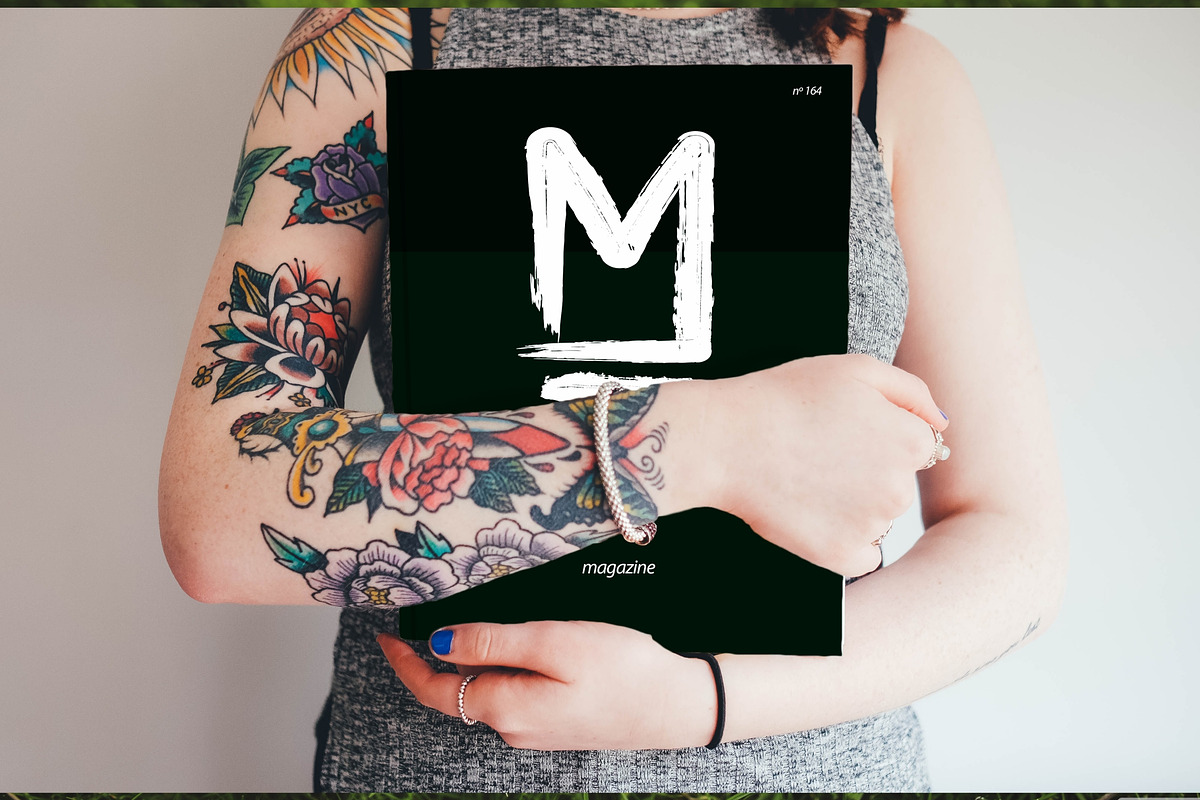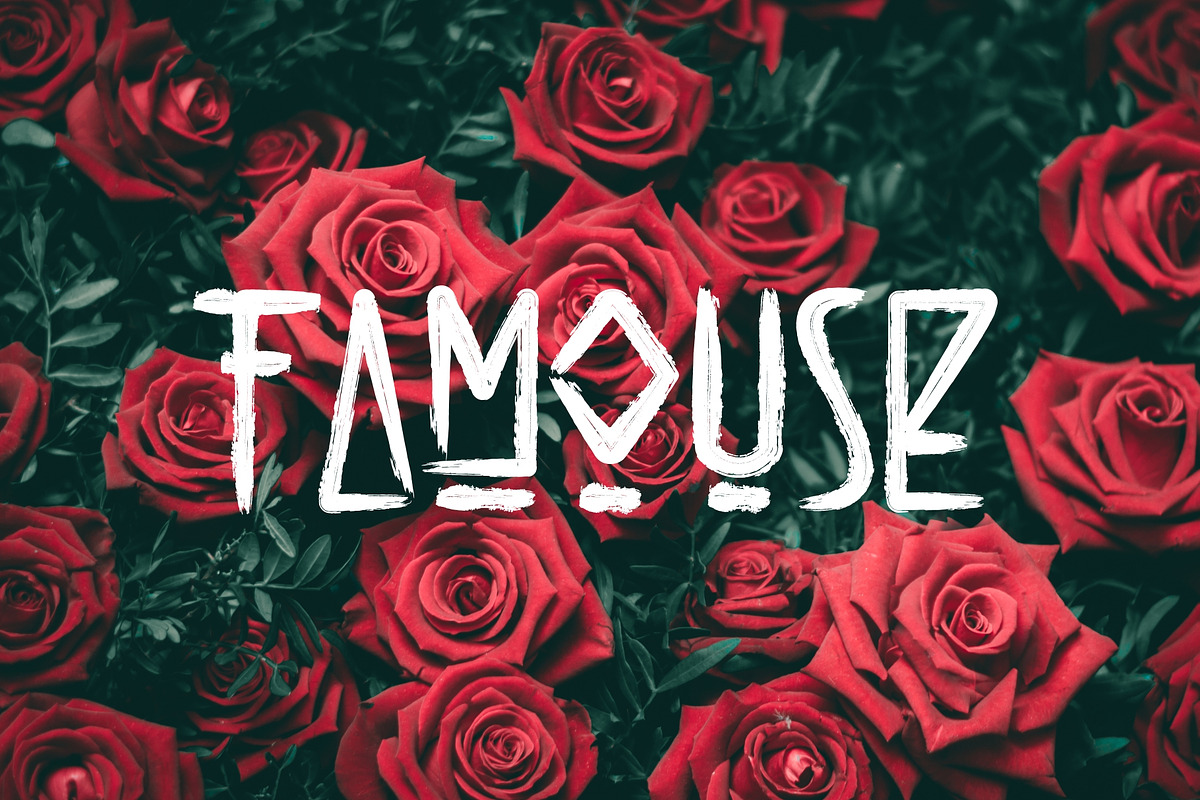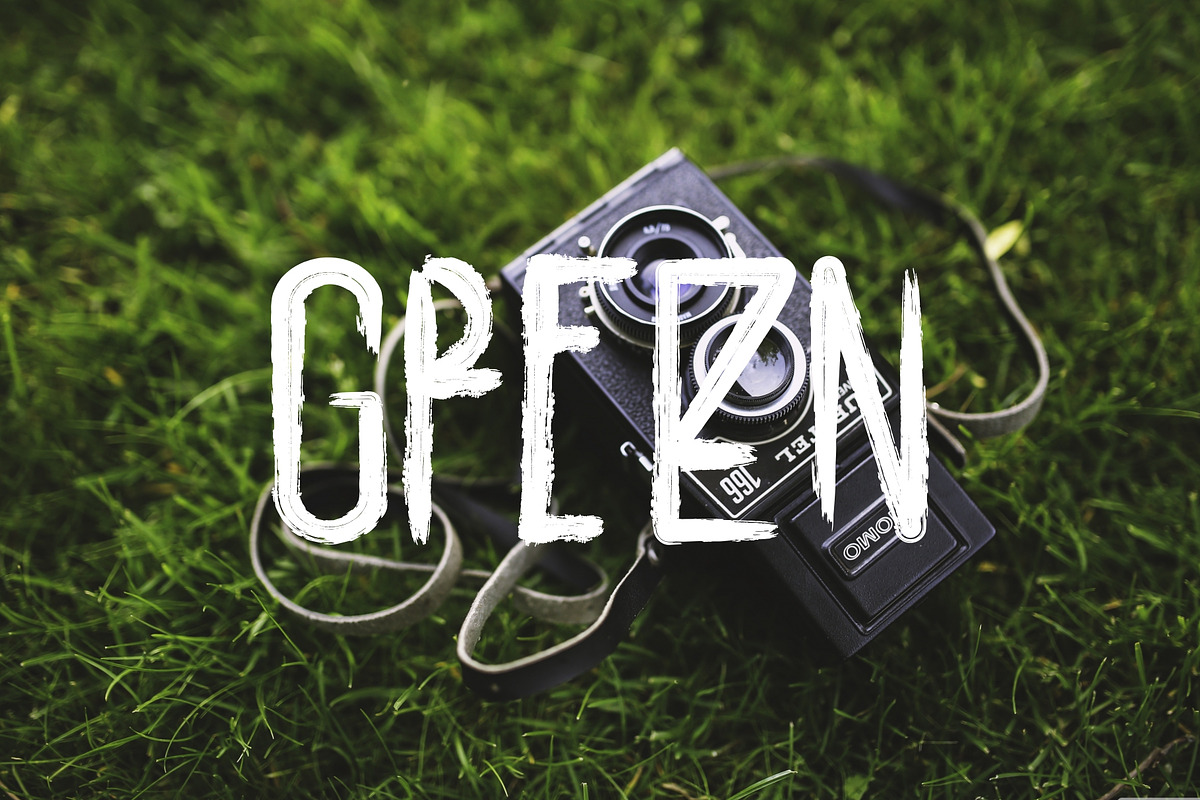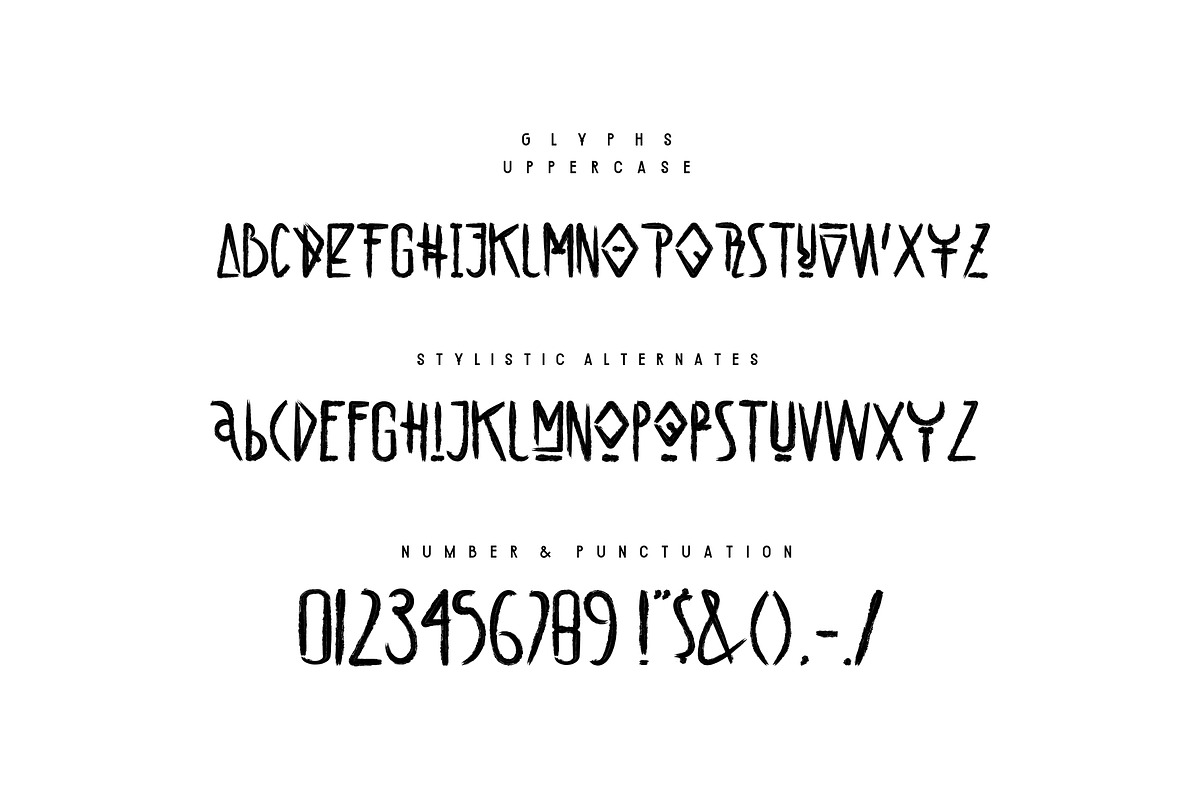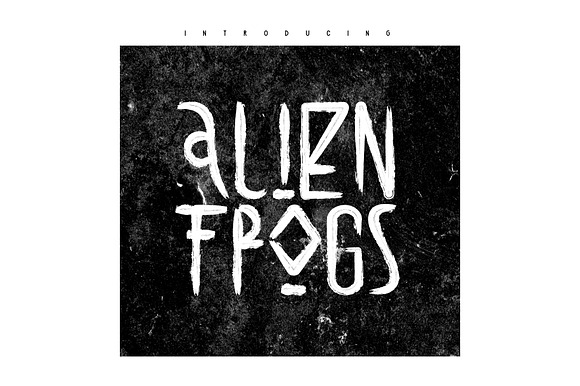
Alien Frogs Brush Font
Give your designs an authentic brush handcrafted fell. “Alien Frogs Typeface” is perfeccly suited to stationery, poster, product packaging, album cover, movie poster & much more
Alien Frogs Brush Font by Maxim apperian fits naturally into Branding, posters, packaging, typography.